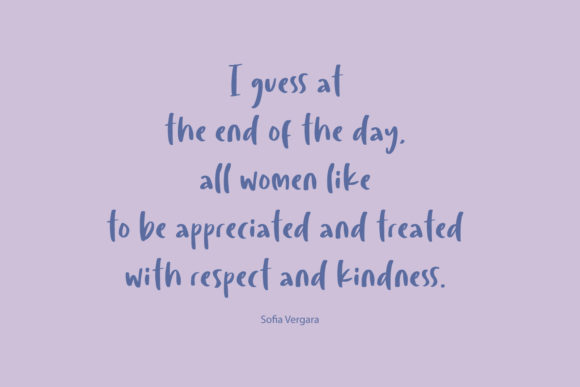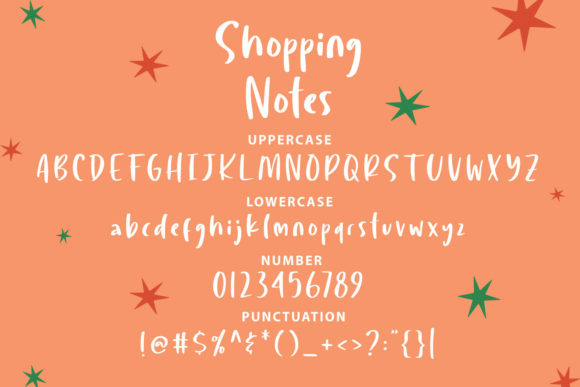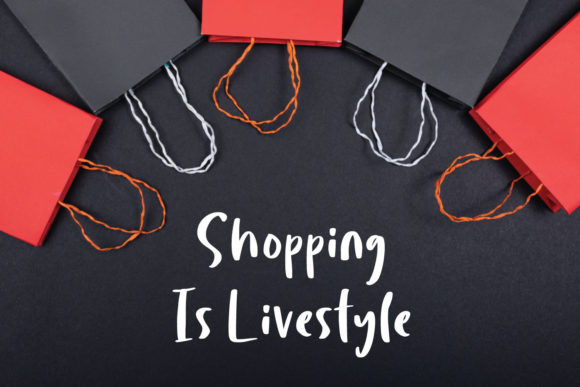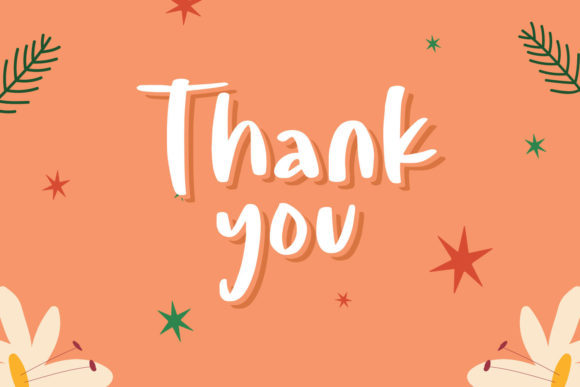
Introduction to Shopping Notes Font
Have you ever found yourself rummaging through your notes from a design meeting, trying to decipher the scribbled ideas and sketches from your brainstorming session? As designers, we’ve all been there – struggling to read our own handwriting and translate it into a cohesive creative project. But what if I told you there’s a font that can make your life easier, and elevate your designs to the next level?
Enter the Shopping Notes Font, a charming and friendly handwritten font that’s about to become your new design BFF. With its high-quality design and transparent background, this font is a game-changer for any creative project. And the best part? It’s available for a free download, making it an instant addition to your design resource library.
Whether you’re a seasoned designer or just starting out, the Shopping Notes Font is an invaluable asset that will take your designs to new heights. So why wait? Get ready to unlock the full potential of your creative projects with this amazing font.
Key Features of Shopping Notes Font
- High-quality design: Shopping Notes Font is a unique and stylish font perfect for creative projects that require a touch of elegance.
- Transparent background: The font’s transparent background allows for easy integration with any design, providing a clean and professional look.
- High-resolution design: The font is designed at a high resolution (300 DPI), making it suitable for use in print materials and digital designs.
- Unique characteristics: The font’s distinctive style and elegant feel make it perfect for creating eye-catching designs and adding a touch of sophistication to any creative project.
- Scalable design: Shopping Notes Font is designed to be scalable, allowing users to adjust the font size without compromising its quality or legibility.
Honest Review: Shopping Notes Font
I recently stumbled upon the Shopping Notes Font, and I must say it’s a lovely addition to any creative project. As a designer, I appreciate high-quality fonts that make a statement, and this one definitely delivers.
- What works well: ✨ The Shopping Notes Font has a unique and playful vibe that’s perfect for adding some personality to your designs. The letters are well-designed and easy to read, making it a great choice for body text or headings.
- What works well: ✨ The font is highly versatile and can be used for a wide range of creative projects, from e-commerce websites to social media graphics.
- ⚠️ The Shopping Notes Font is a bit limited in terms of character sets, which may not be ideal for designers working on complex projects that require a wide range of characters.
- ⚠️ The font may not be suitable for use in smaller font sizes, as the letters can become difficult to read.
Overall, I’d say the Shopping Notes Font is a solid choice for designers looking for a high-quality, free download font that’s perfect for adding some personality to their creative projects.
Shopping Notes Font
To get the most out of the Shopping Notes Font, experiment with different font sizes and colors to create a visually appealing design. Use the font’s transparent background to create a cohesive look with other design elements. Consider combining the font with other design resources for a unique and creative project.
The Shopping Notes Font is perfect for a variety of design projects, including blog posts, social media graphics, and product labels. Its high-quality design and transparent background make it a great resource for designers looking for a unique and creative font.